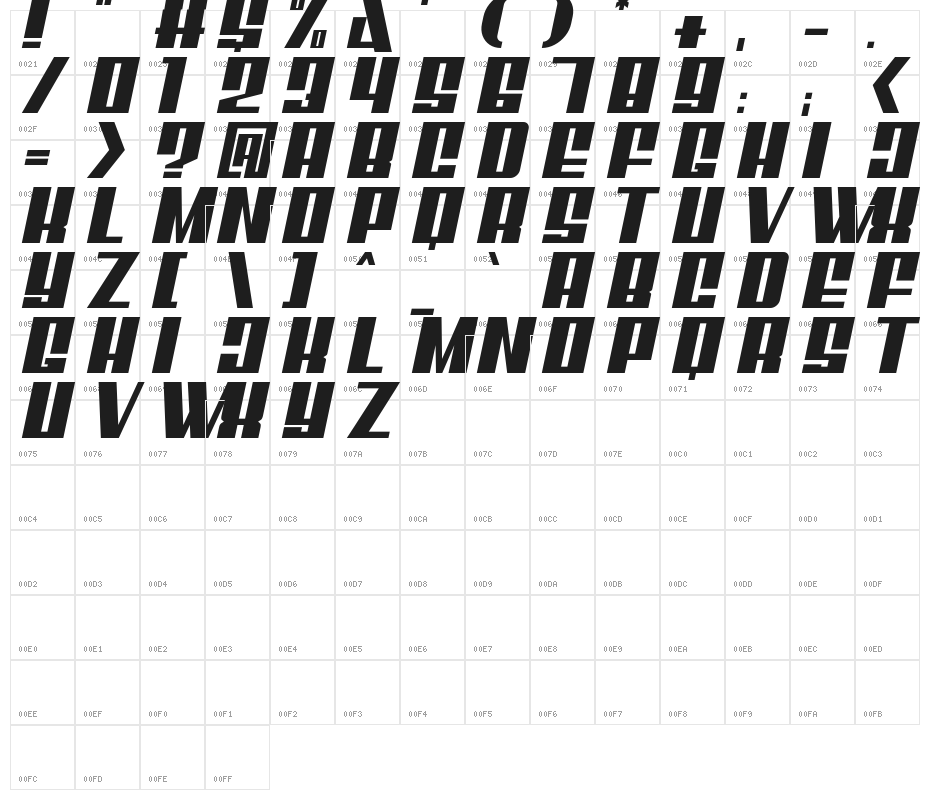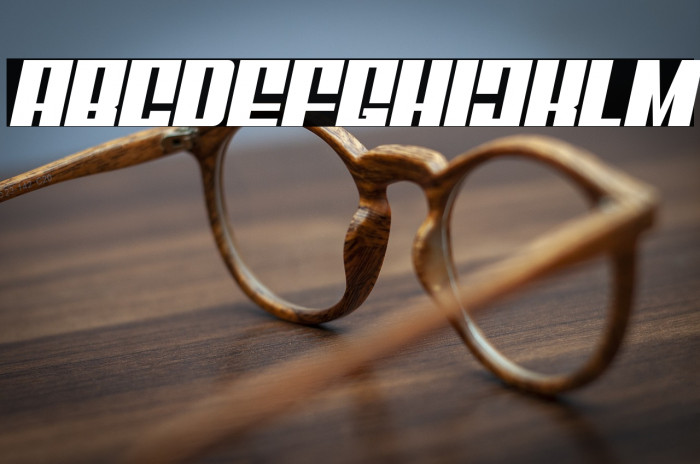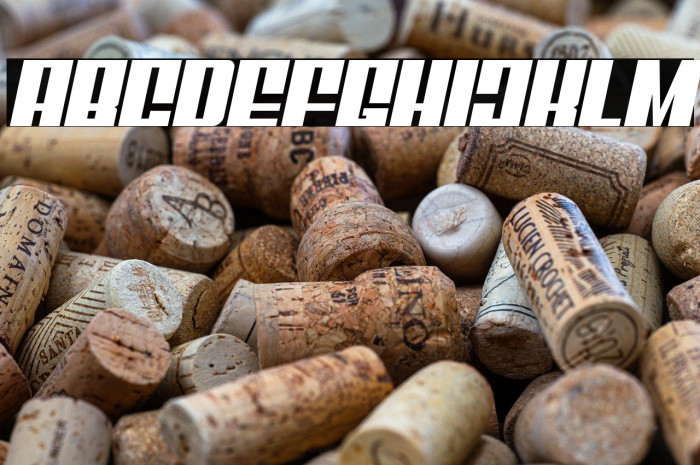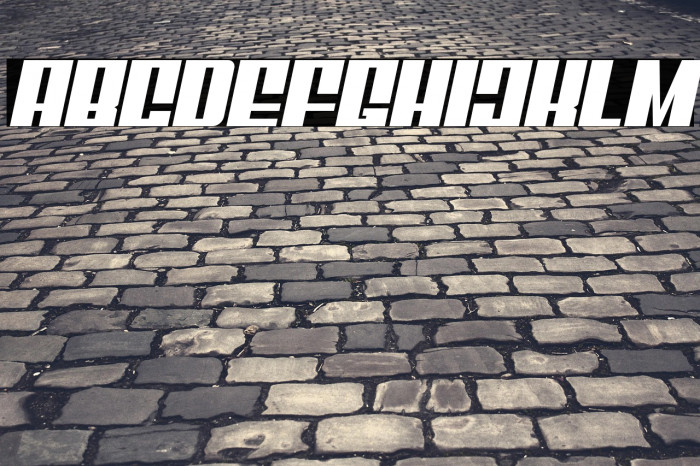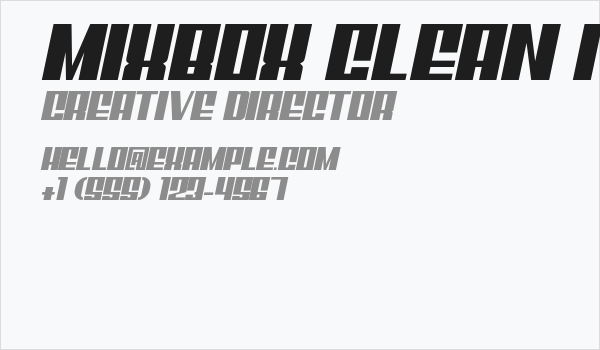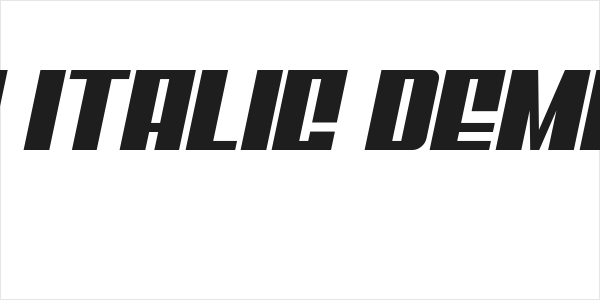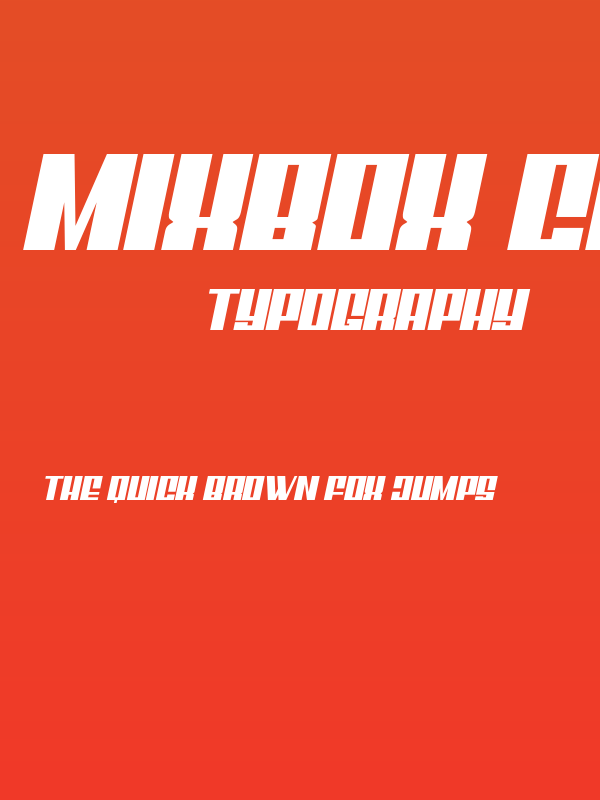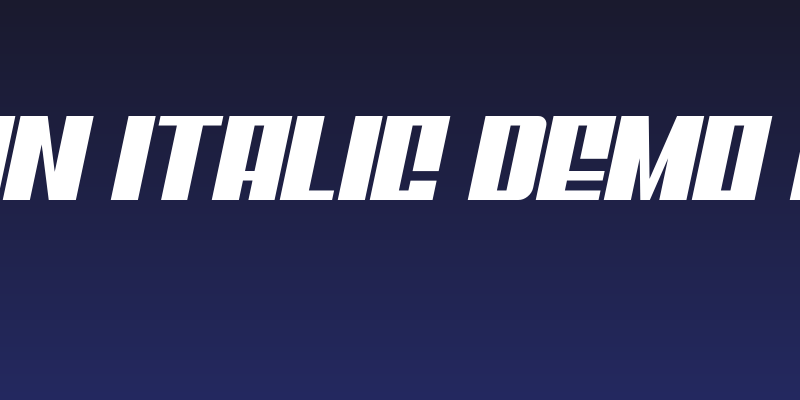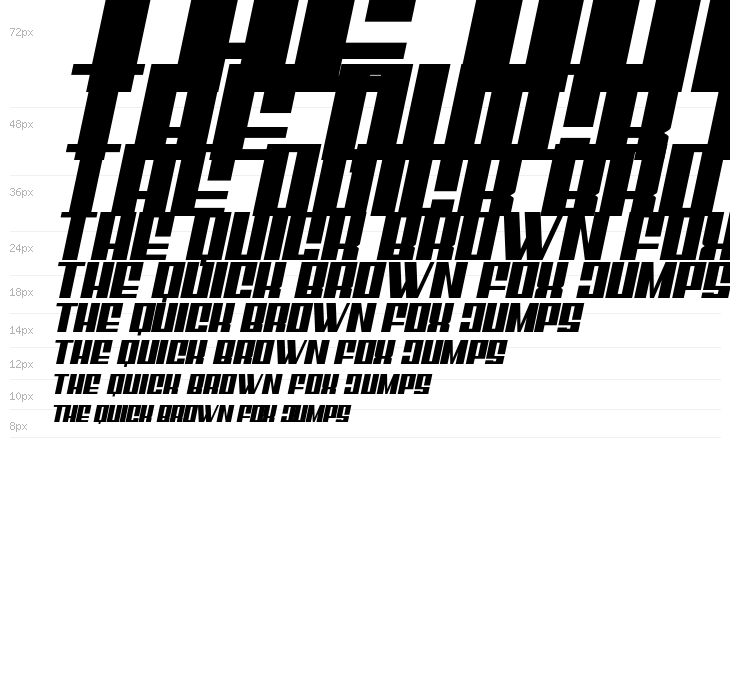
Mixbox Clean Italic Demo Clean Italic Font
Mixbox Clean Italic Demo Clean Italic Description
This font features a bold and dynamic design with a strong italic slant, giving it a sense of movement and energy. The characters are blocky and geometric, with sharp angles and a consistent stroke width that conveys a modern and futuristic aesthetic. The uppercase and lowercase letters maintain a uniform height, enhancing readability while adding a unique style. The numbers and special characters follow the same design principles, ensuring a cohesive look across all elements. This font's boldness and distinct style make it suitable for impactful and attention-grabbing designs.